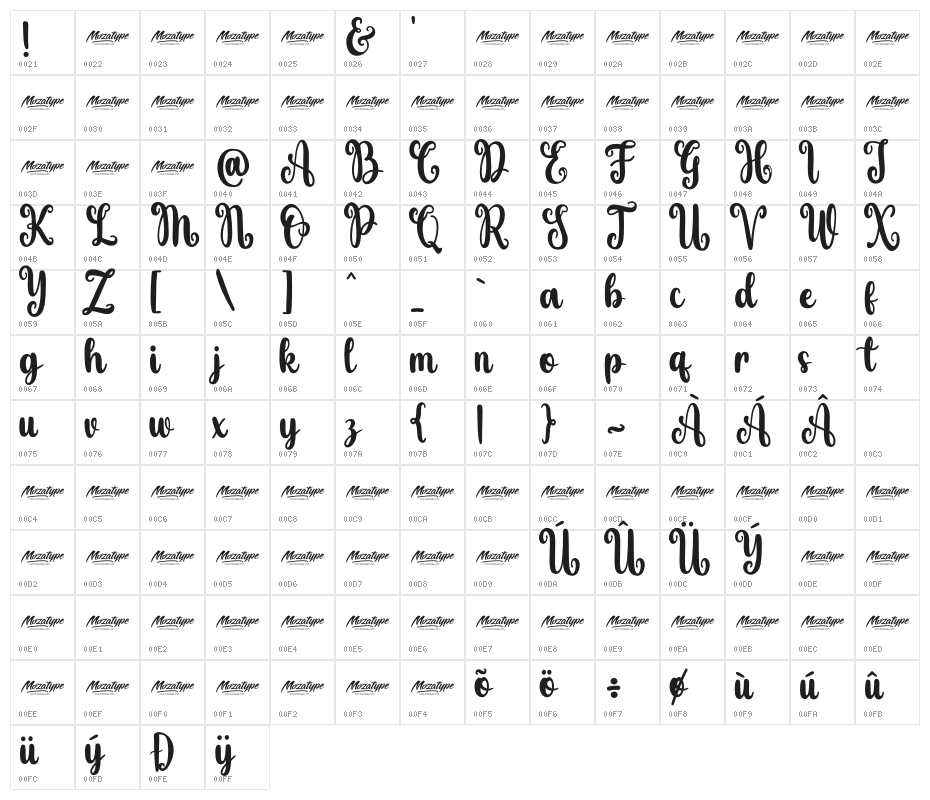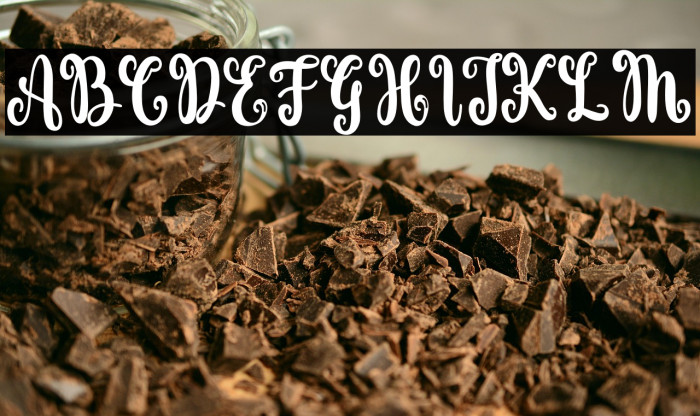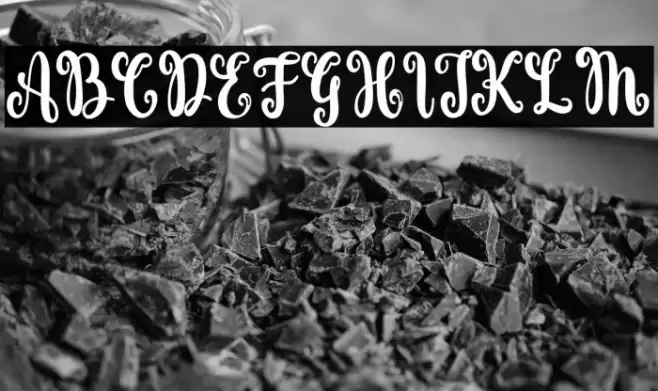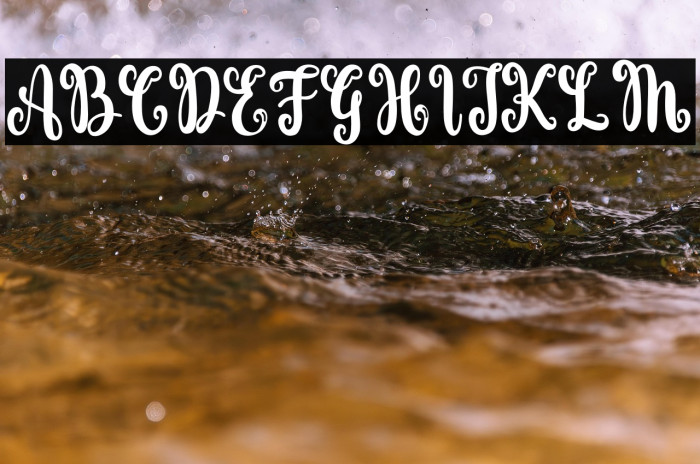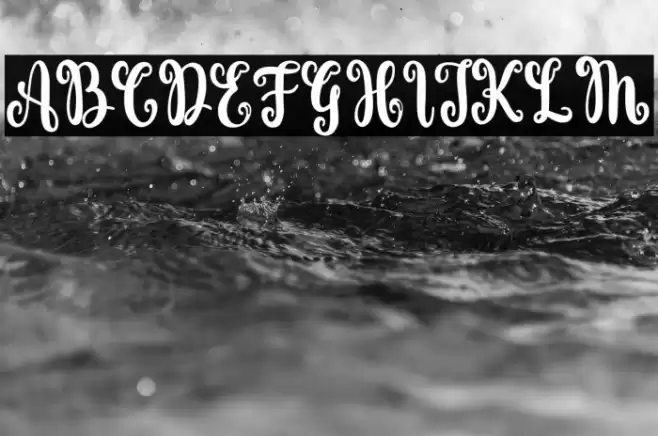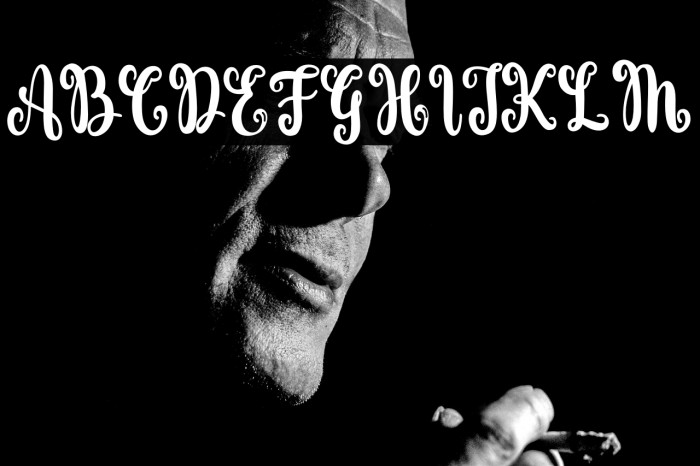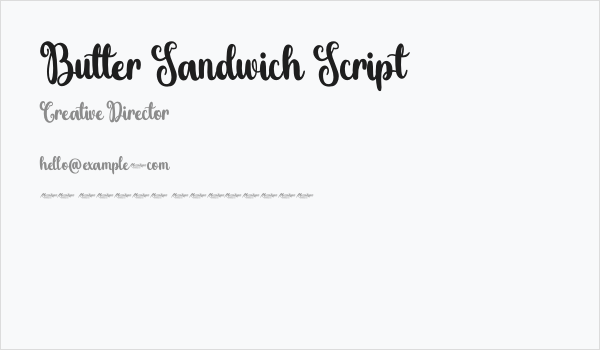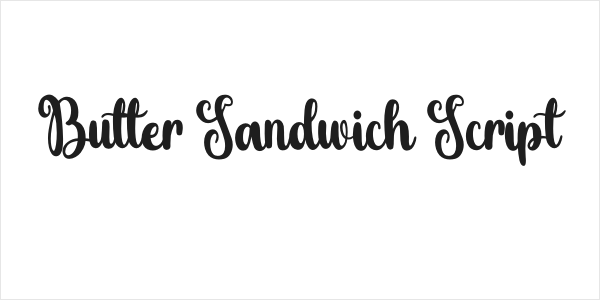
Butter Sandwich Script Font
Butter Sandwich Script Description
This font features a playful and bold script style, characterized by its flowing, interconnected letters and whimsical flourishes. The uppercase letters are ornate, with loops and curls that add a decorative touch, while the lowercase letters maintain a consistent, rounded form that enhances readability. The font's thick strokes and smooth curves give it a lively and energetic appearance, making it ideal for projects that require a fun and engaging aesthetic. The special characters, including punctuation marks, are designed to match the overall style, ensuring a cohesive look across all text elements.
| Proposed Projects | Ideal for greeting cards, invitations, branding, and social media graphics. |